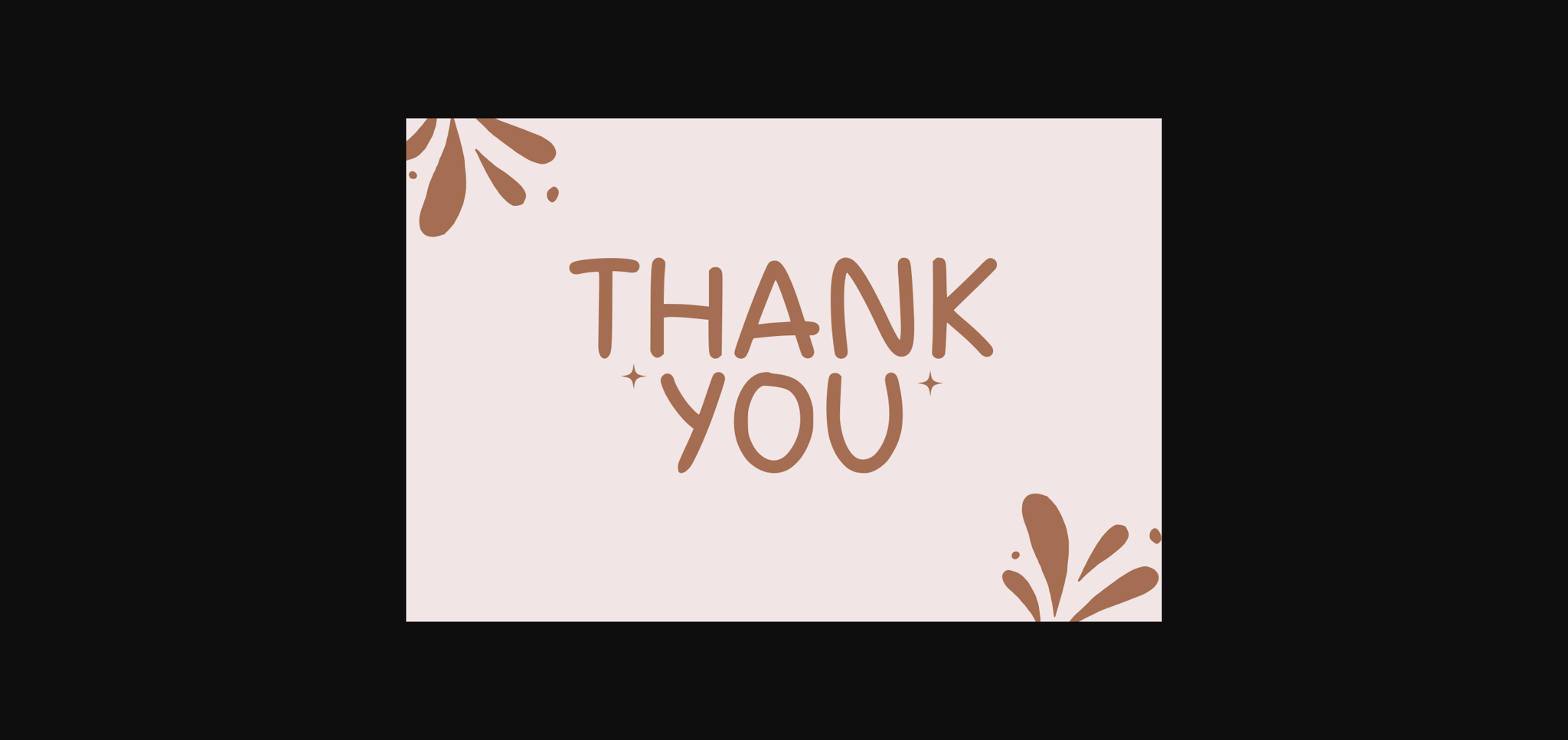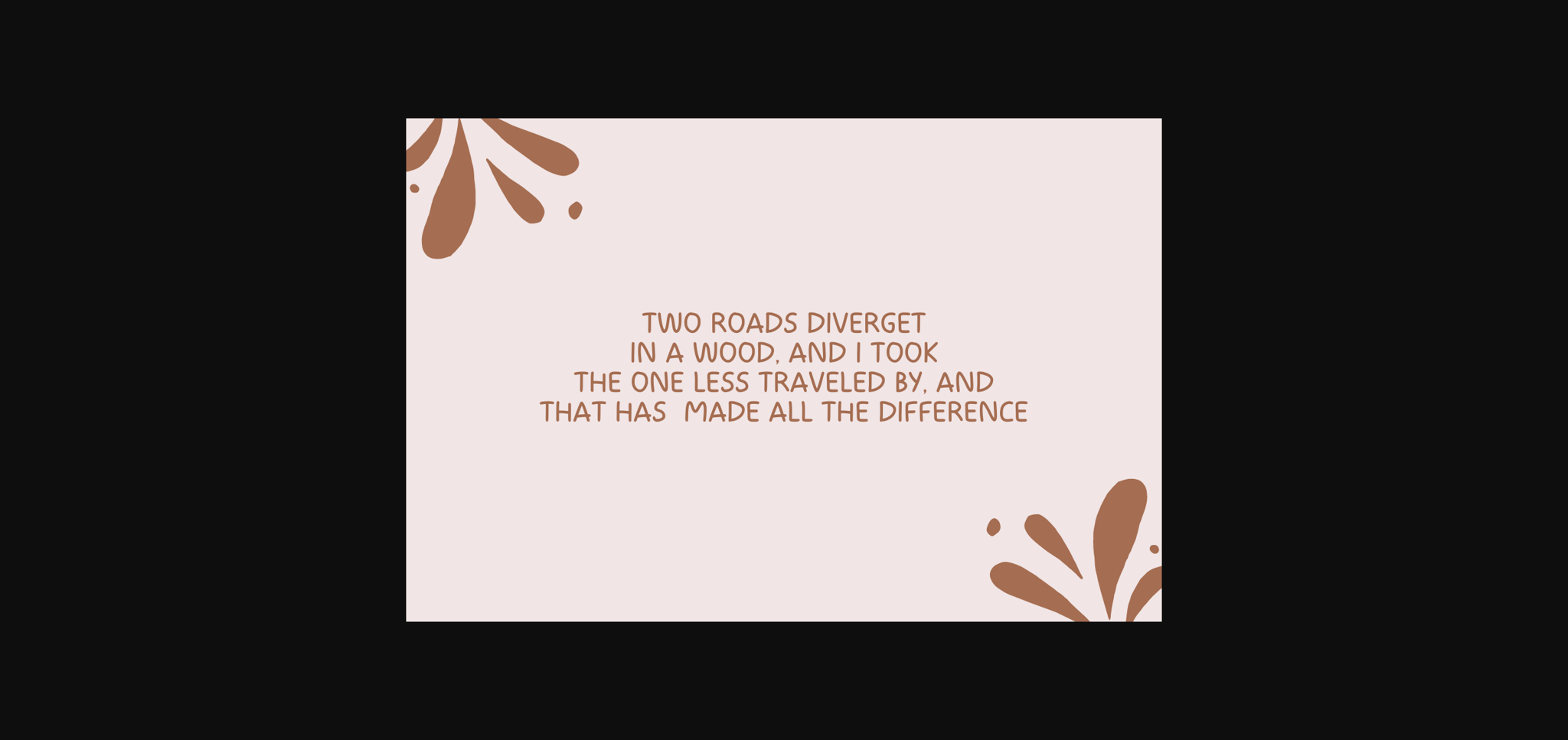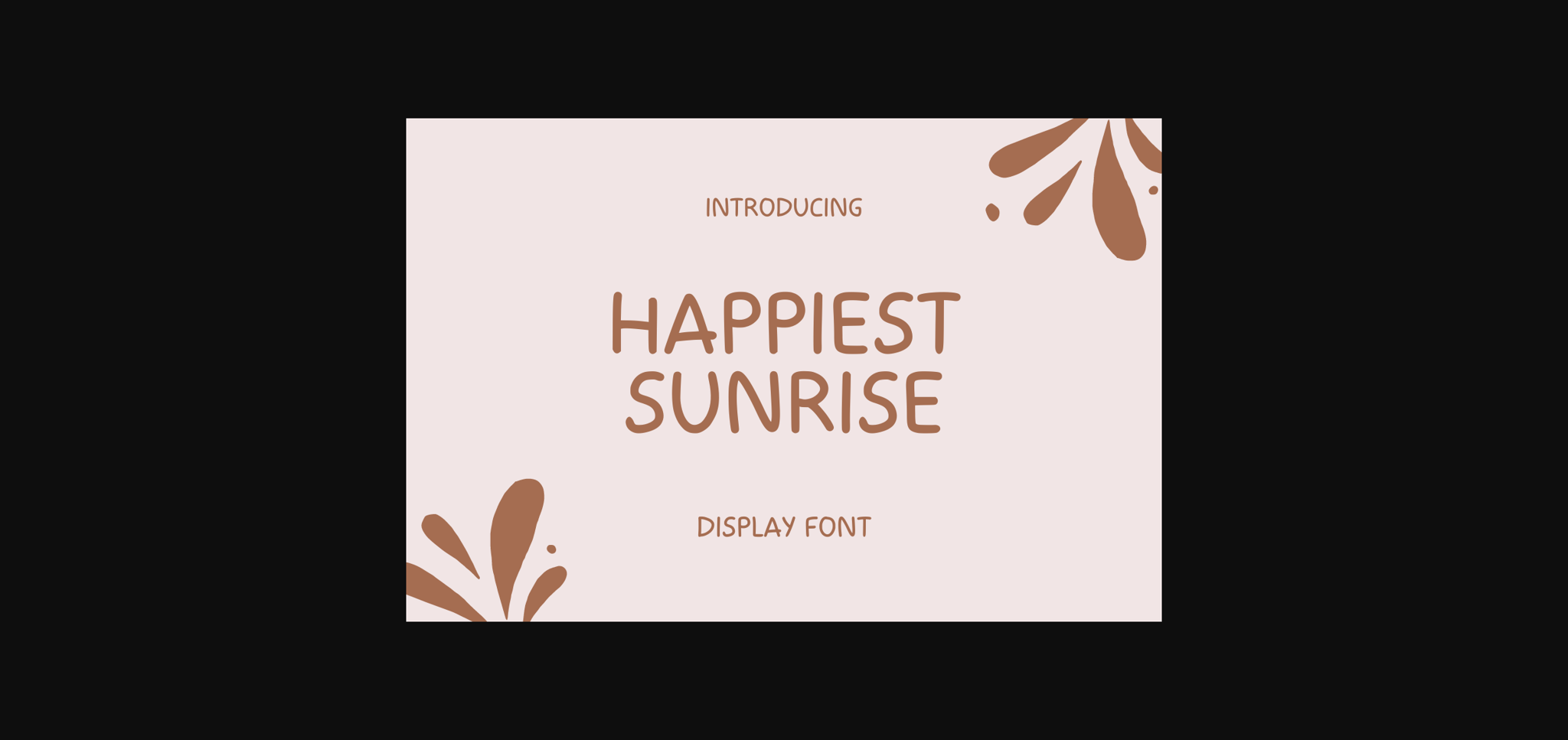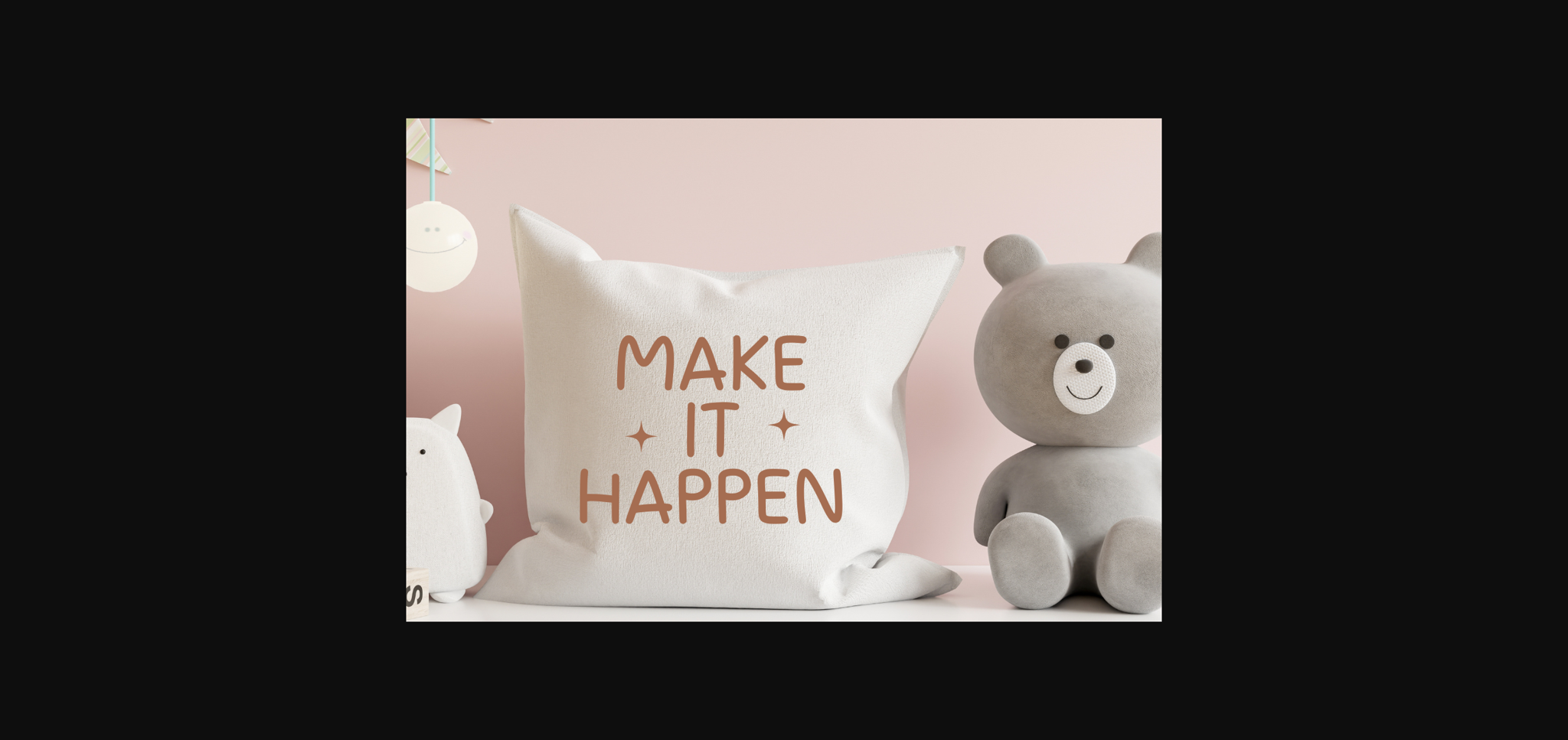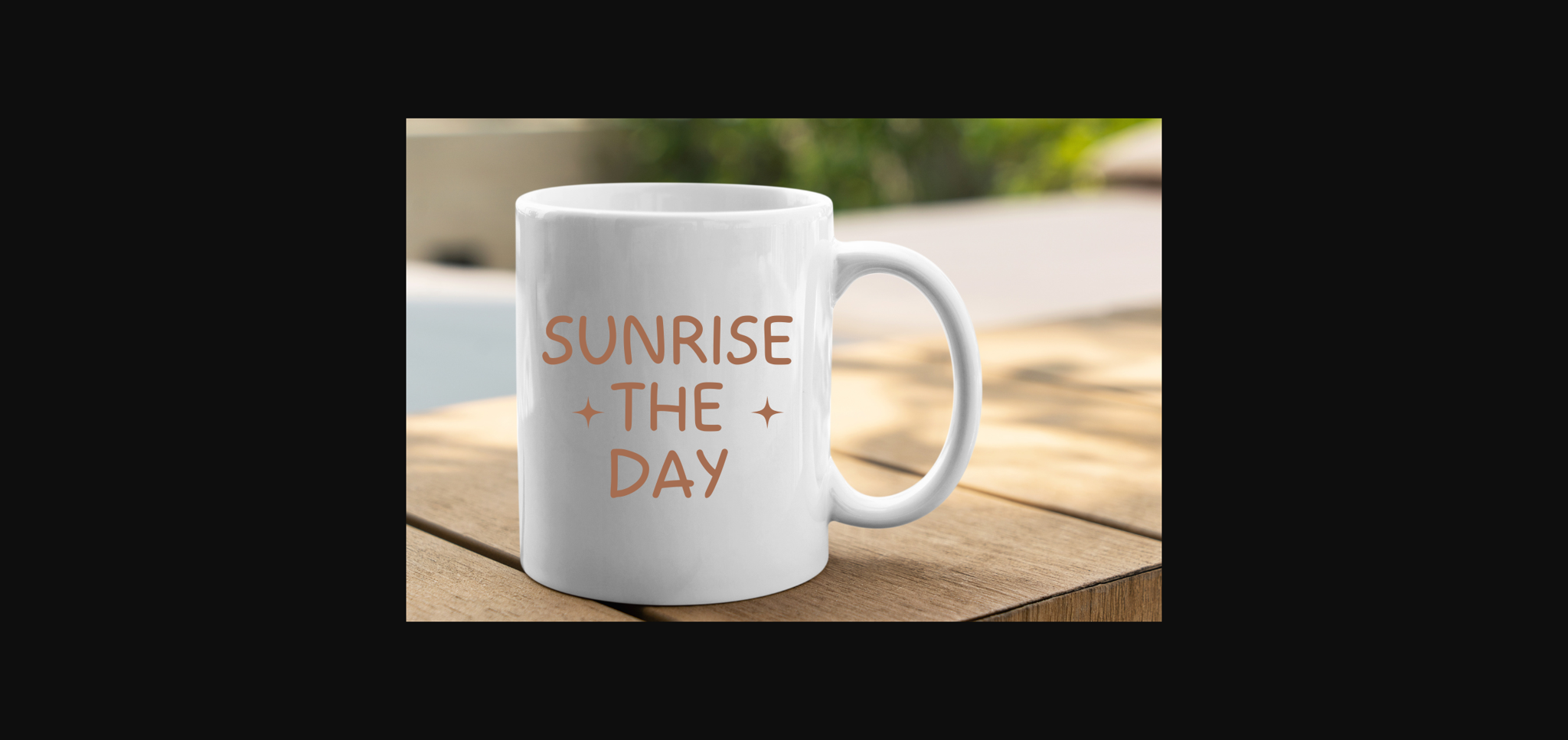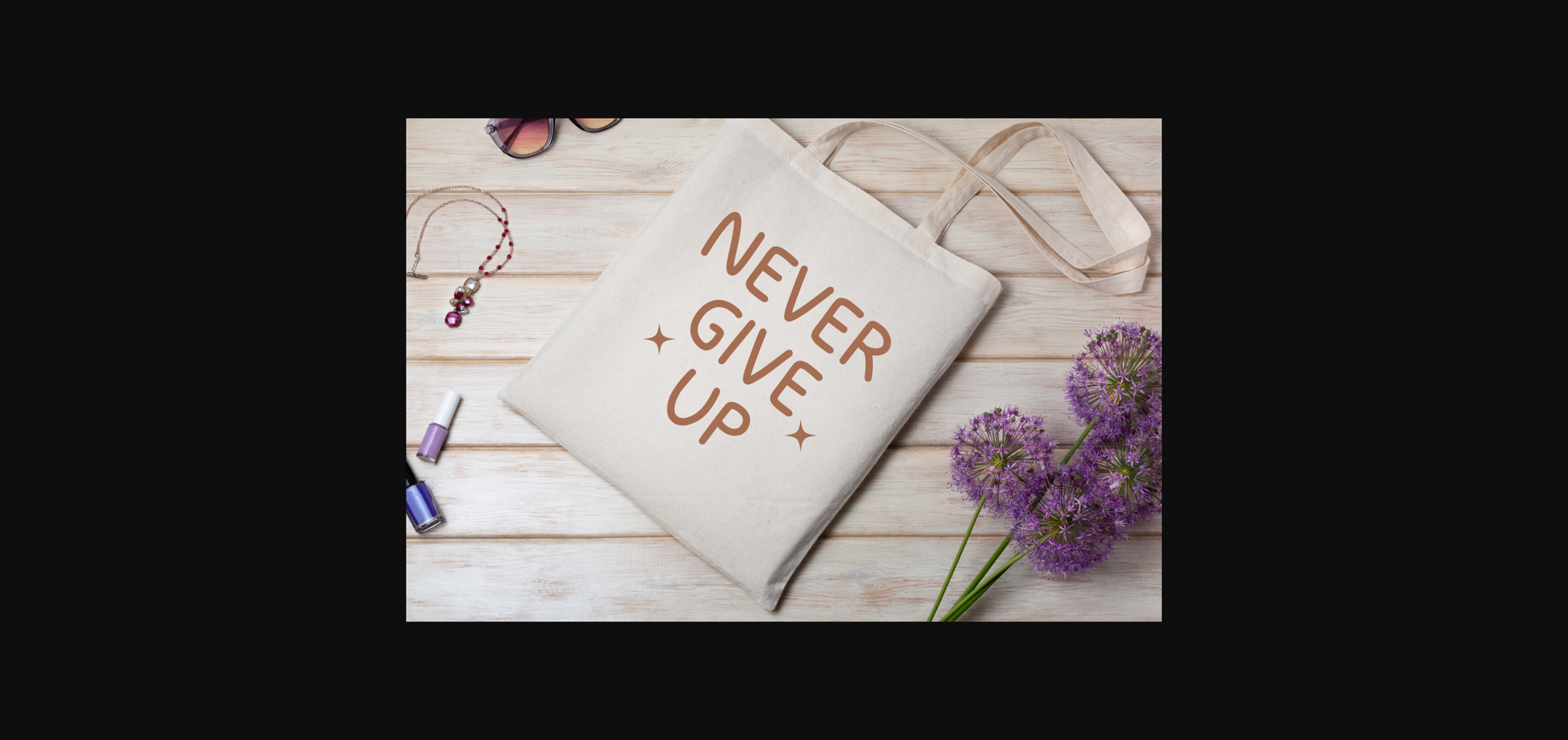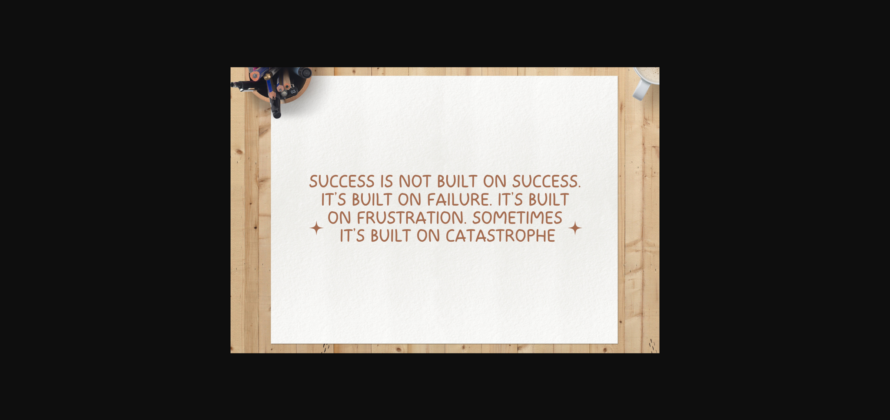
HomeSans Serif FontsHappiest Sunrise Font Sans Serif Fonts Happiest Sunrise Font FacebookXPinterestWhatsApp 1 of 10 ... Happiest Sunrise Font Poster 2... Happiest Sunrise Font Poster 3... Happiest Sunrise Font Poster 4... Happiest Sunrise Font Poster 5... Happiest Sunrise Font Poster 6... Happiest Sunrise Font Poster 7... Happiest Sunrise Font Poster 8... Happiest Sunrise Font Poster 9... Happiest Sunrise Font Poster 10... About Happiest Sunrise Font Happiest Sunrise is a cute and playful sans-serif font. Whatever the topic, this font is perfect for your creative craft needs! DOWNLOAD NOW People also explored Gareth Bayu – Handwritten Font Kick the Can Serif Font Farmhouse Font Sweater Font Desthira Font Stronger Electric Font Rastin Smith Font Dashaya Font Bristhony Font 454 0 TagsHappiest Sunrise Font Previous articleRose Pink FontNext articleWonderful Font LEAVE A REPLY Cancel reply Comment: Please enter your comment! Name:* Please enter your name here Email:* You have entered an incorrect email address! Please enter your email address here Website: Save my name, email, and website in this browser for the next time I comment. Personal Use Free Forturn Personal Use Free Read more about this font Cokobi Personal Use Free Read more about this font Karmatic Arcade Personal Use Free Read more about this font Charlie Personal Use Free Read more about this font BLOG Free vs Paid Fonts: Why Investing in Premium Fonts Is Worth It Free vs Paid Fonts: Why Premium Fonts Are Worth It in 2025 The debate of free vs paid fonts continues in the design world. While... How to Install and Use Fonts on Windows, macOS, and Web Projects How to Cut Any Font on Cricut: Convert a Font to SVG (Free) The 10 Best Handwriting Fonts to Add Personality to Your Designs